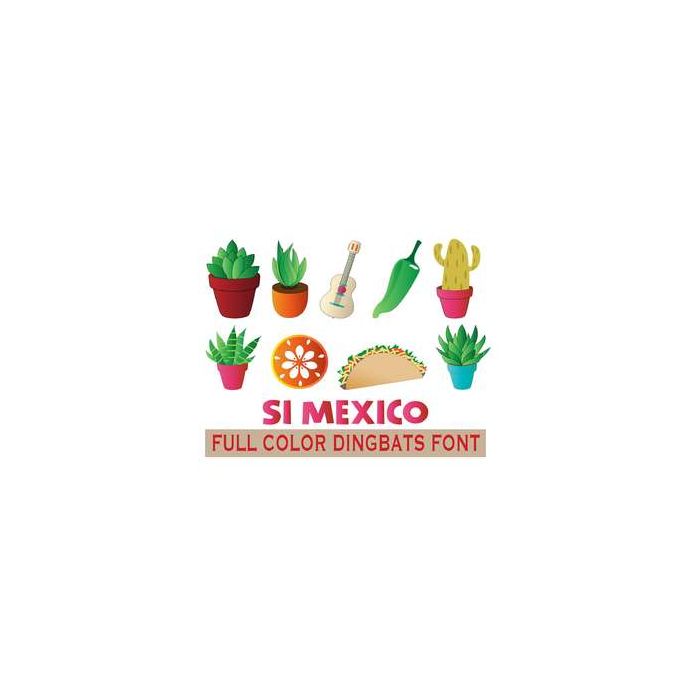
full-color si mexico dingbats font
Each full-color dingbats font has 26 elements to use for scrapbooking, planner stickers, heat press, tattoo paper, cards, as framed prints, posters, flyers - so much.